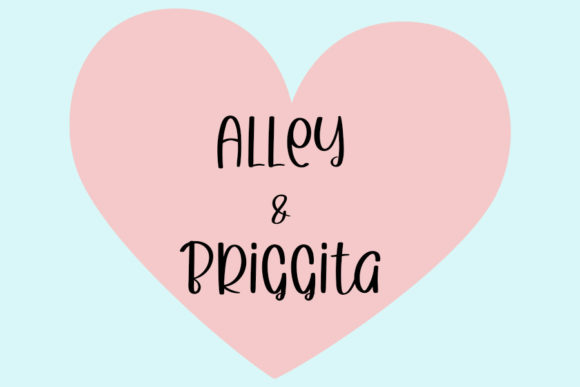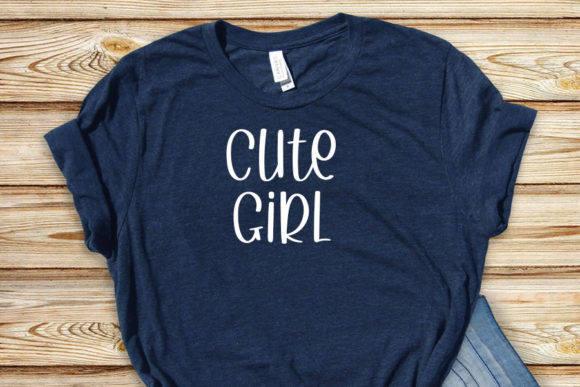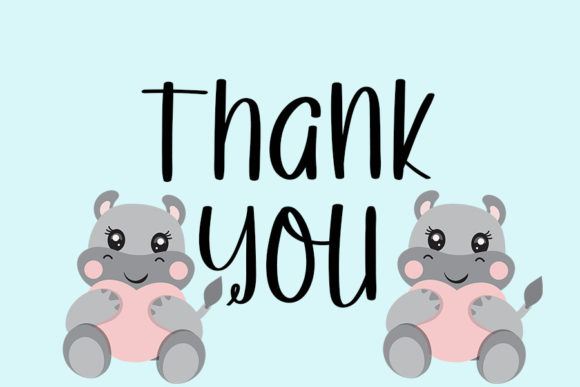
The Brave Hippos Font: A Sweet and Quirky Display Delight
I’ll never forget the moment I stumbled upon the Brave Hippos font. I was working on a project for a children’s book, and I was struggling to find the perfect font to match the playful and adventurous tone of the story. That’s when I discovered Brave Hippos, a sweet and quirky display font that instantly captured the essence of my project. In this article, I’ll share my experience with Brave Hippos, its unique features, and how to make the most of it in your designs.
• ✨ Unique and natural style that adds a touch of whimsy to any design
• ✅ Highly versatile and fitting for a wide range of projects, from children’s books to branding and advertising
• 🌈 Beautifully crafted with attention to detail, making it a joy to work with
• 💡 Excellent for headlines, titles, and short paragraphs, where a playful touch is desired
While Brave Hippos is an amazing font, there are a few things to keep in mind:
• ⚠️ It may not be the best choice for body text or long paragraphs, as its quirky style might be distracting
• 🤔 Some characters may not be suitable for small font sizes, so it’s best to use it for display purposes
4. Experiment with OpenType features, such as glyphs and stylistic alternates, to add more personality to your text
Brave Hippos was designed with the intention of creating a font that’s both fun and versatile. The designer wanted to craft a font that would inspire creativity and playfulness in designs, while also being legible and easy to read. The result is a font that’s perfect for a wide range of projects, from children’s books to branding and advertising.
Q: What type of projects is Brave Hippos best suited for?
A: Brave Hippos is best suited for projects that require a playful and whimsical touch, such as children’s books, branding, advertising, and packaging.
Q: Can I use Brave Hippos for body text or long paragraphs?
A: While Brave Hippos is a beautiful font, it’s not recommended for body text or long paragraphs. Its quirky style might be distracting, and it’s best used for display purposes.
Q: Does Brave Hippos support OpenType features?
A: Yes, Brave Hippos supports OpenType features, such as glyphs and stylistic alternates. You can access these features in compatible design software, such as Adobe Photoshop or Illustrator.